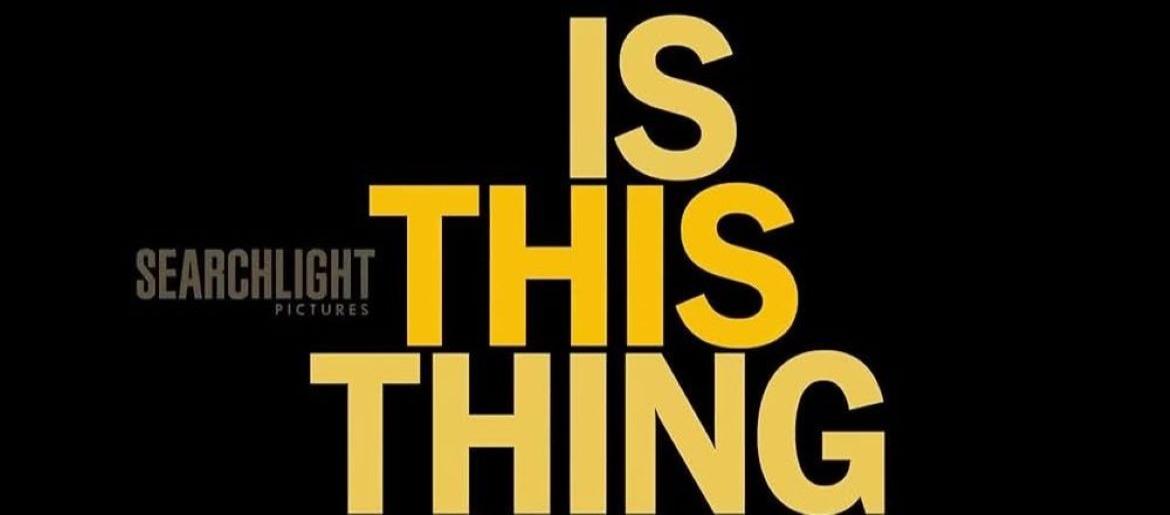
Is This Thing On Font
The Is This Thing On Font is a refined, modern typeface with a warm, approachable personality. Its clean lines and balanced spacing create a subtle sophistication, making it ideal for film posters, streaming titles, and other designs that require a personal, human touch. The font exudes a friendly yet polished feel, perfectly blending casual charm with professional clarity.
The 2025 Bradley Cooper film Is This Thing On tells an intimate story about love, personal growth, and the complexities of human relationships. The narrative explores the vulnerability, ambition, and emotional nuance of its characters, capturing moments of quiet introspection alongside heartfelt interactions. Much like the font itself, the movie balances sophistication with approachability, creating an experience that feels both warm and visually inviting.